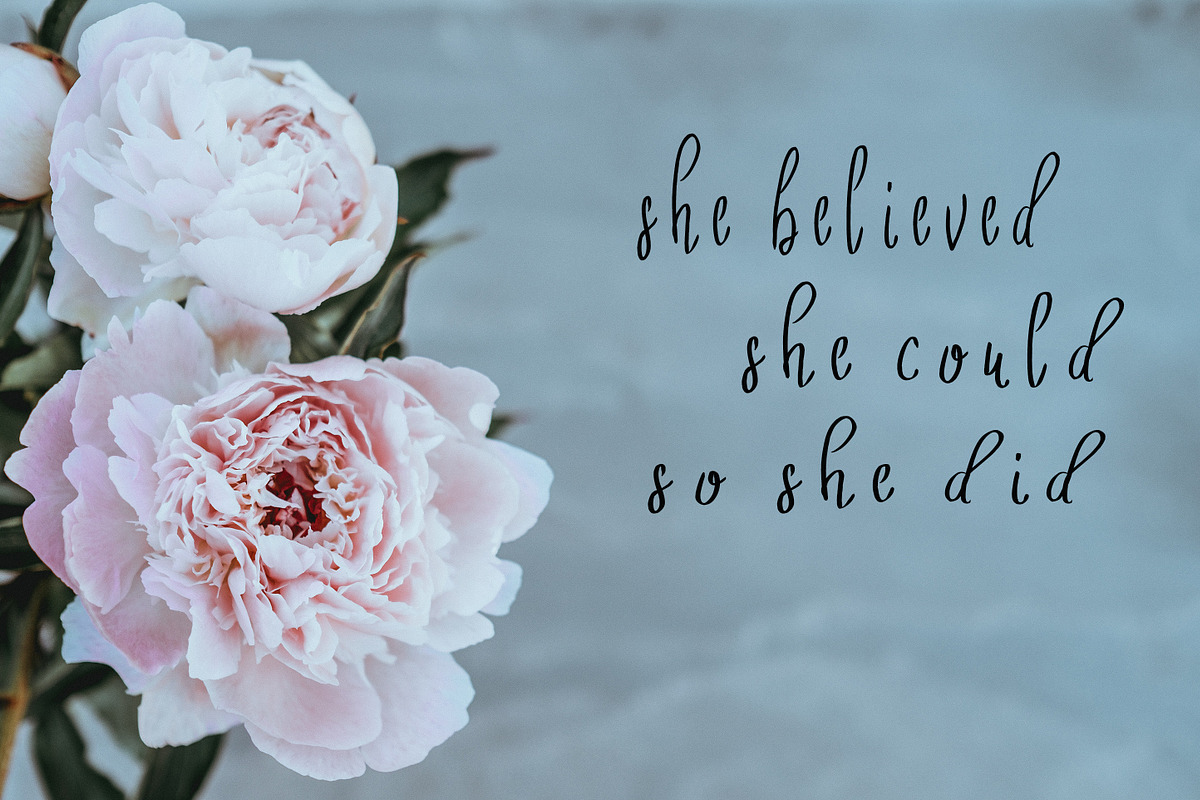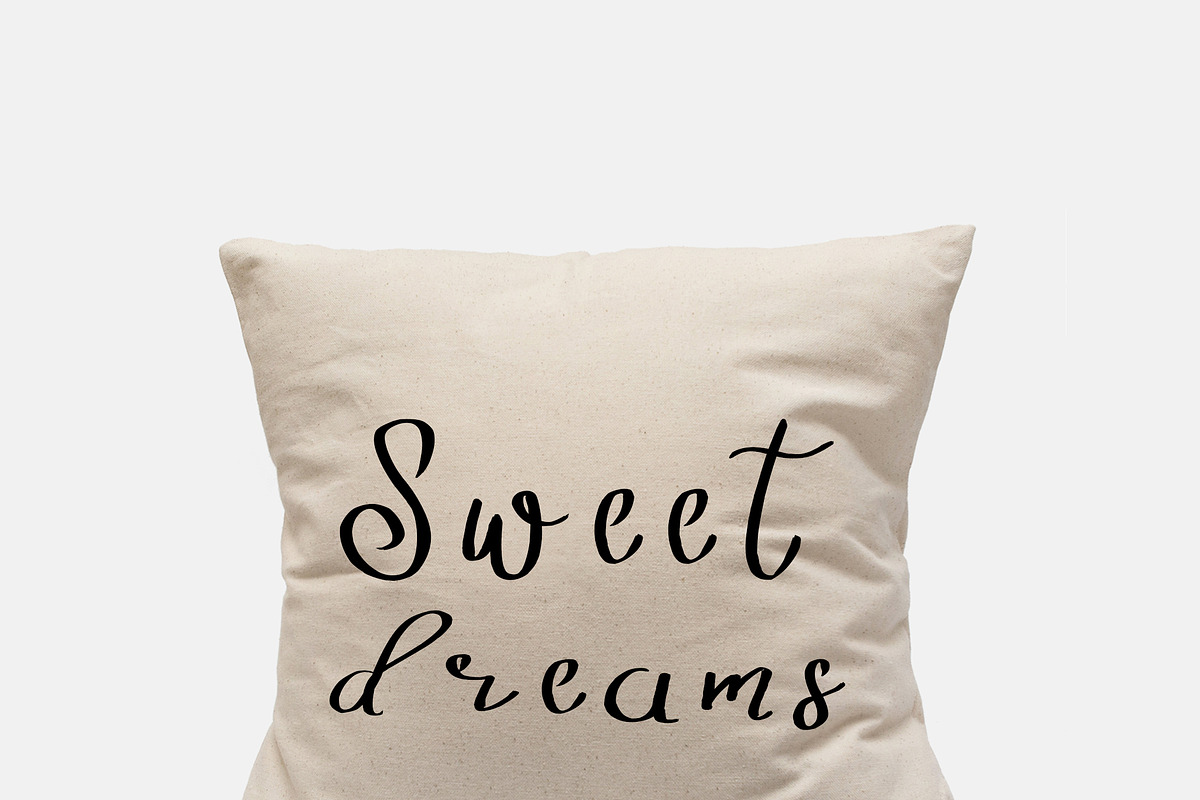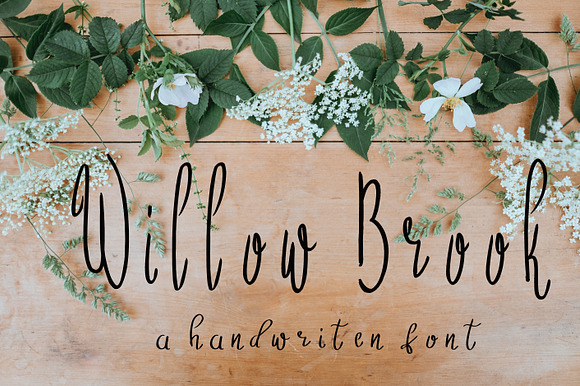
Willow Brook Handwritten Font
New casual handwritten font
Why Willow Brook Handwritten Font is worth a look
Willow Brook Handwritten Font by Hudson Lark Studio fits naturally into Branding, posters, packaging, typography.